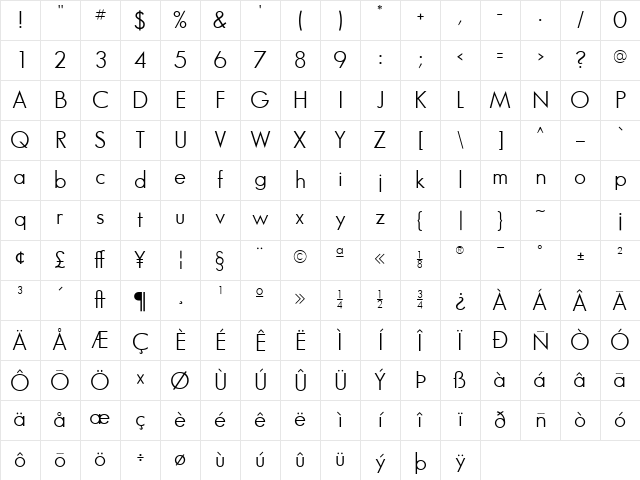
Complete Bougan Book SSi Book glyph index. Displaying only characters natively supported by Bougan Book SSi Book font.
Bougan Book SSi is a composed and adaptable typeface that performs quietly and consistently across a wide range of design contexts.